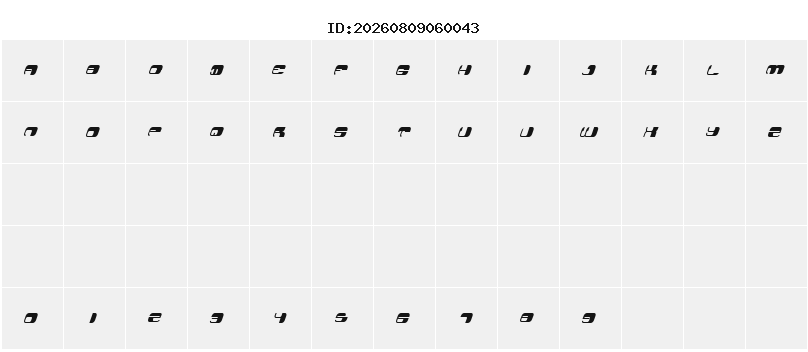
Phat Font Preview
• Font Name: Phat Font
• Full Font Name: Phat Font Italic
• PostScript Name: PhatFont-Italic
• Character Count: 43
• Copyright: Deze Dezines
• Designer: Deze
• Manufacturer: Deze Dezines
• Description: A funky phat font